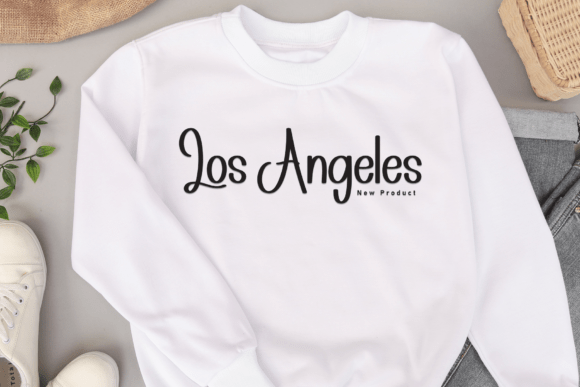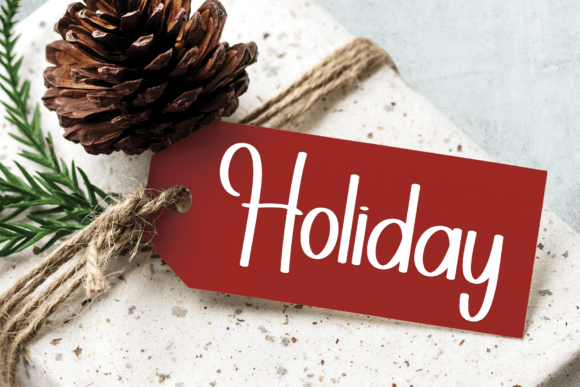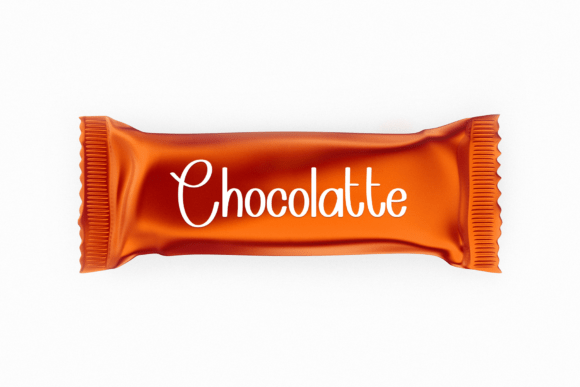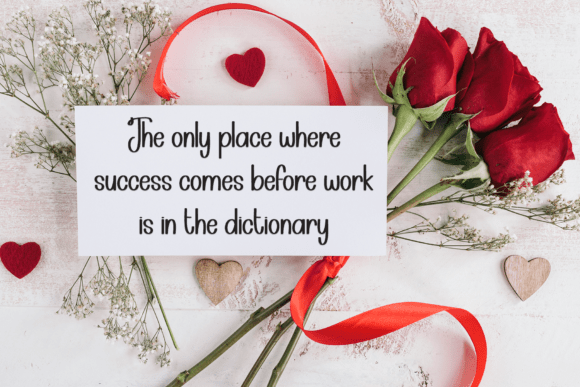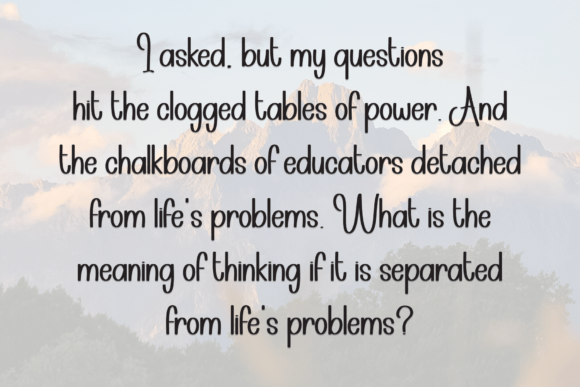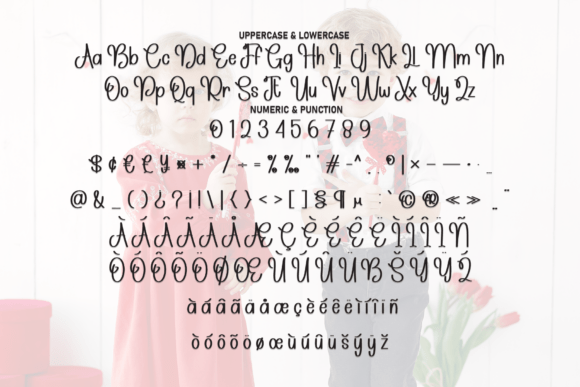
The Perfect Script for a Special Day
As designers, we’ve all been there – staring at a blank page, trying to come up with the perfect font to capture the essence of a special moment. For me, it was designing a birthday card for my niece – I wanted something that would convey the love and excitement of her special day. And then I stumbled upon the Baby Valentine Font.
This beautiful script font is designed to evoke a sense of elegance and sophistication, making it perfect for youth-oriented branding and packaging. With its vertically elongated letterforms and smooth character joins, the Baby Valentine Font feels both personal and high-end. Whether you’re designing a greeting card, a product label, or a digital header, this font is an exceptional choice. And for designers, its value lies in its versatility and ability to add a touch of whimsy to even the most mundane designs.
Baby Valentine Font Key Features
- Font Style: Cursive, Handwritten
- Unique Characteristics: Features a whimsical and playful design, perfect for adding a touch of romance and innocence to your designs
Baby Valentine Font Review
When I first saw the Baby Valentine Font, I was immediately drawn to its whimsical and playful charm. The font’s use of soft, rounded edges and delicate curves ✨ adds a touch of warmth and innocence to any design. It’s perfect for creating a nursery or baby-themed project that exudes sweetness and joy.
- The font’s versatility is a major plus, as it can be used for a wide range of applications, from invitations and greeting cards to branding and signage.
However, I do have some concerns about the font’s limitations ⚠️. One major issue is its lack of bold weights, which can make it difficult to use in certain situations, such as in headings or titles where a stronger font is needed.
Overall, I would give the Baby Valentine Font 4 out of 5 stars. While it has its limitations, its unique charm and versatility make it a great addition to any designer’s toolkit. With some minor tweaks, I think this font has the potential to become a true classic.
Tips: Use the Baby Valentine font to create adorable invitations, party decorations, and nursery wall art. Experiment with different font sizes and colors to add visual interest.
Tips: Use the Baby Valentine font to add a touch of whimsy to your designs. Experiment with layer blending modes and effects to enhance the font’s appearance.
The Baby Valentine font is ideal for:
- Nursery wall art and decor
- Custom graphics and logos
- Engagement and wedding invitations
Alternative Fonts to Baby Valentine
Great Vibes is a beautiful, elegant script font perfect for creating a romantic and whimsical atmosphere. It is ideal for wedding invitations, greeting cards, and other special occasions. Great Vibes has a more refined and sophisticated look compared to Baby Valentine Font, which is more playful and childlike.
Carolyna Pro is a modern calligraphy font that offers a wide range of styles and flourishes. It is suitable for creating elegant and sophisticated designs, such as wedding invitations, branding, and packaging. Carolyna Pro is more versatile and has a more polished look compared to Baby Valentine Font, which is more casual and playful.
Playfair Display is a luxurious and elegant serif font that adds a touch of sophistication to any design. It is ideal for creating high-end branding, advertising, and editorial designs. Playfair Display has a more refined and classic look compared to Baby Valentine Font, which is more playful and modern.
Pacifico is a beautiful, elegant script font that is perfect for creating a relaxed and beachy atmosphere. It is ideal for designing logos, branding, and packaging for beach-themed businesses or products. Pacifico has a more laid-back and casual look compared to Baby Valentine Font, which is more playful and childlike.